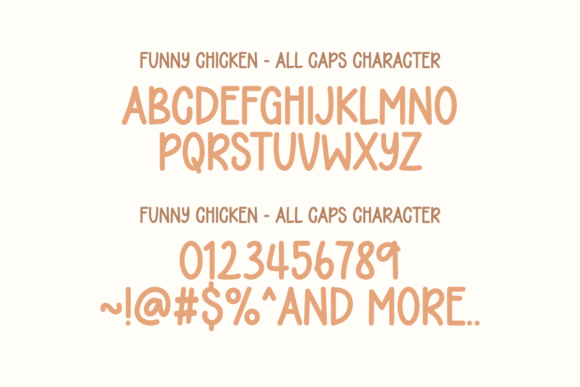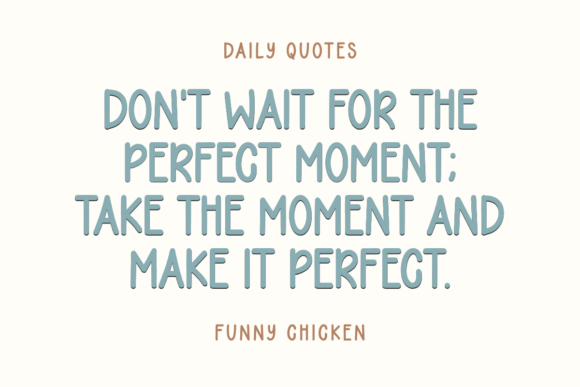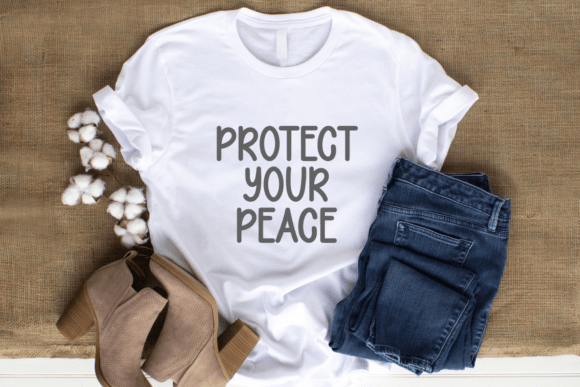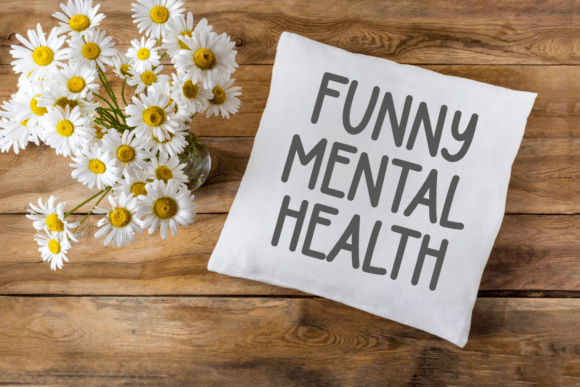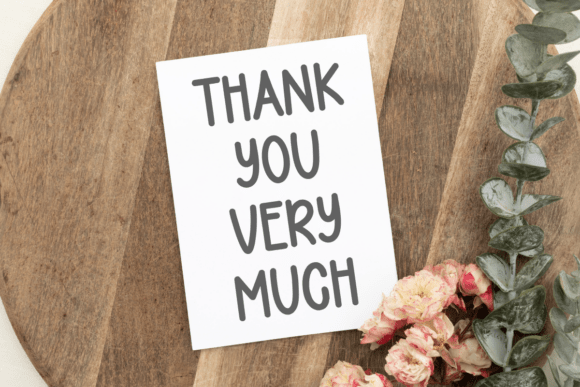
Introduction to Funny Chicken Font
Have you ever been working on a creative project, pouring your heart and soul into it, only to realize that the perfect font is missing? That’s exactly what happened to many designers when they discovered the Funny Chicken Font. This elegantly minimalist, thin sans serif font is a game-changer for any project that needs a touch of natural charm.
The Funny Chicken Font is more than just a design resource – it’s a key to unlocking your full creative potential. With its high-quality, free download, you can elevate any project from ordinary to extraordinary. Whether you’re working on planners, interior designs, journals, or Cricut creations, this font is sure to bring a smile to your face.
One of the standout features of the Funny Chicken Font is its transparent background, making it easy to use on any design without overpowering the rest of the elements. As a valuable resource for designers, this font is a must-have for any creative project, from stickers and labels to inspiring quotes and more.
Key Features of Funny Chicken Font
- High-quality design for creative projects and advertisements
- Design resource for designers, artists, and writers
- Comes with a transparent background for easy integration
- Unique, playful, and humorous style that adds a touch of whimsy to any design
Honest Review: Funny Chicken Font
What works well for me is the high-quality design and the transparent background, making it easy to integrate into various creative projects. The font’s quirky style adds a fun touch to any design, making it perfect for projects that need a lighthearted tone.
The Funny Chicken Font has a wide range of applications, from social media graphics to children’s book illustrations. Its versatility is definitely a plus.
However, I do have some limitations to mention:
- ⚠️ The font may not be suitable for professional or corporate projects, as its playful style may not convey the level of professionalism desired.
- ⚠️ The font’s quirky style may not appeal to all designers, so it’s essential to consider the project’s tone and audience before using it.
Overall, I’m impressed with the Funny Chicken Font, and I think it’s a great addition to any designer’s toolkit. It’s a fun and creative resource that can add a unique touch to various projects.
The Funny Chicken Font is a high-quality, free download that can add a touch of whimsy to any creative project. With its unique design and transparent background, this font is perfect for designers looking to add some humor and personality to their work.
The Funny Chicken Font is perfect for a variety of projects, including social media graphics, presentations, logos, and print materials. It’s also great for adding a touch of humor and personality to your designs.